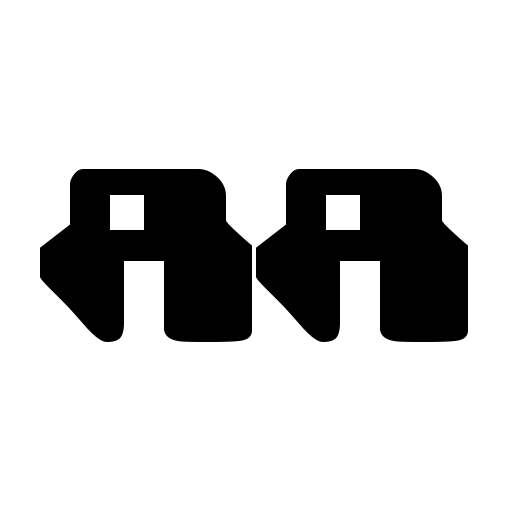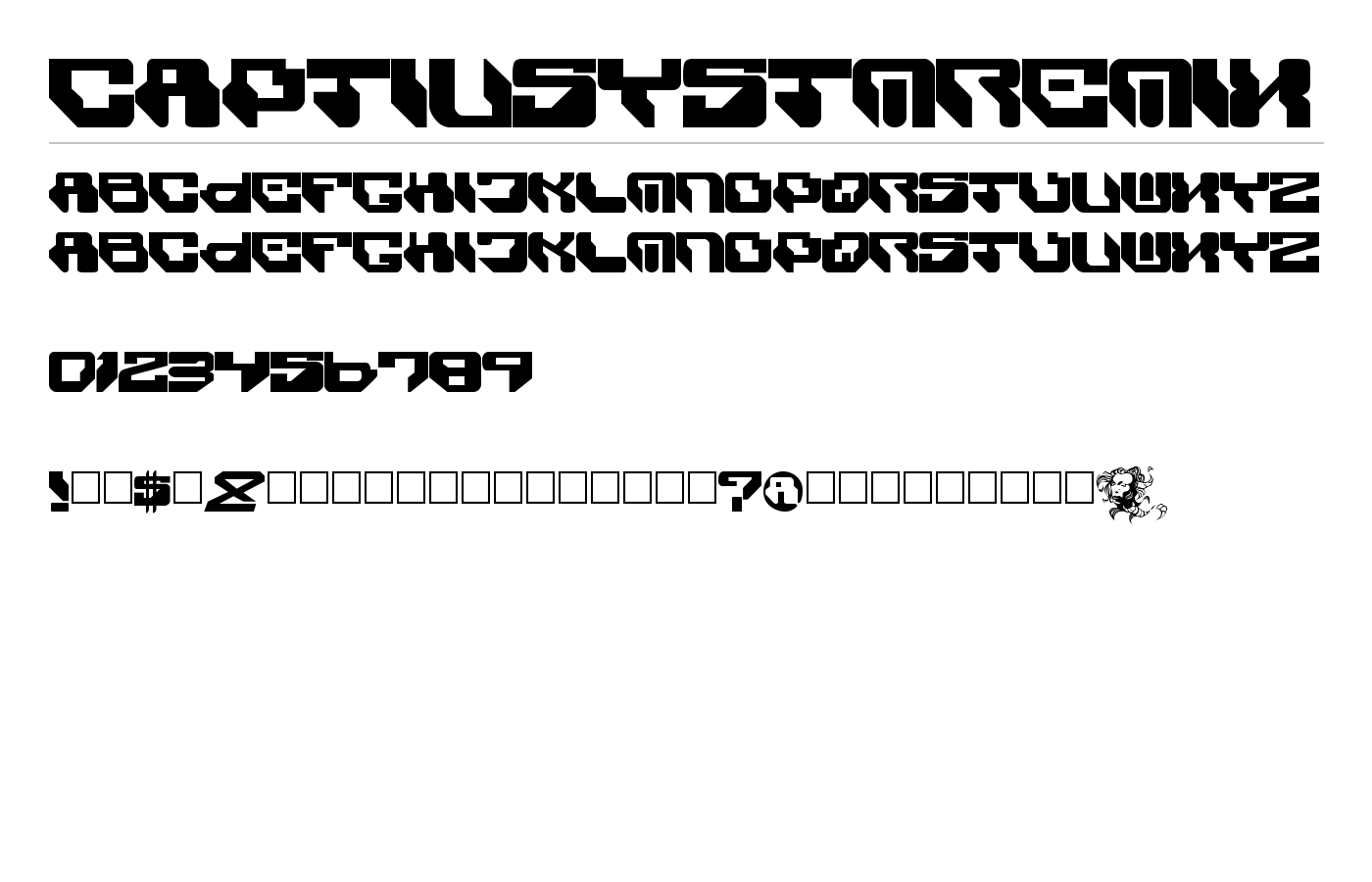
CaptivSystMRemiX is a bold, geometric sans serif font with a distinctively futuristic and industrial feel. Its thick, blocky letterforms and sharp angular cuts give it a strong, mechanical character well suited for tech, gaming, or science fiction branding. Ideal for eye-catching headlines or logos, this typeface commands attention with its unique, modern personality.
CaptivSystMRemiX Font
About CaptivSystMRemiX Font